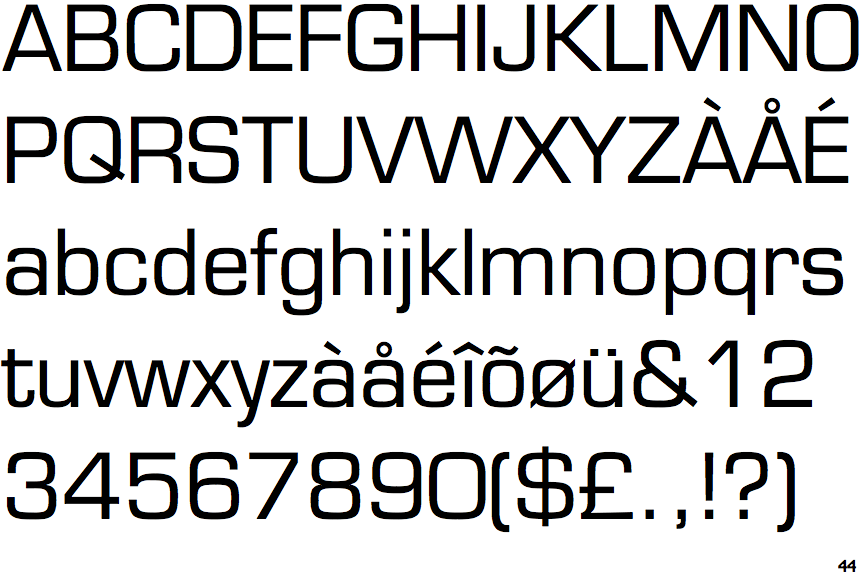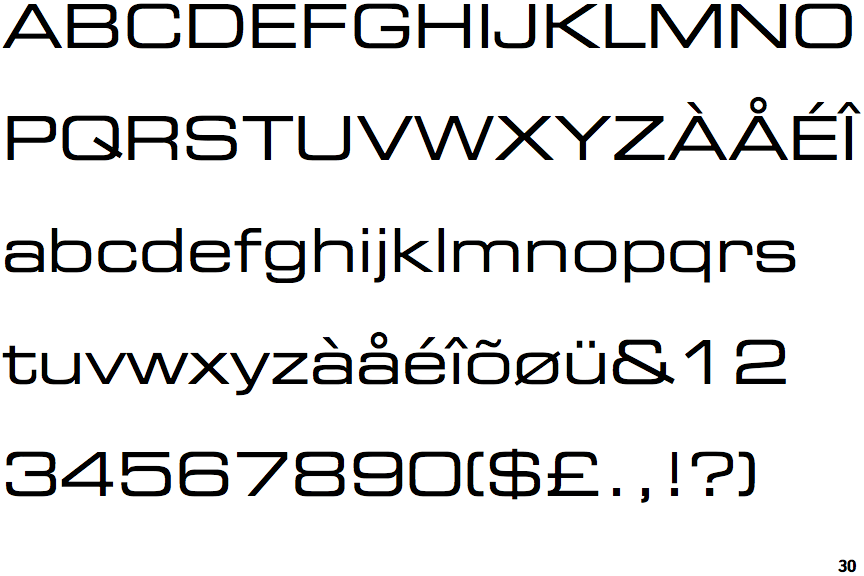
Eurostile font is an inspired variant of its previous typeface, microgramma. Home for the best free fonts. This is an extended typeface that is also.
This Font Is Very Close To Microgramma.
Here we are presenting the eurostile font that was initially designed by aldo novarese in the year 1962. 10 years immediately after microgramma, novarese mended this limitation using his style and. Eurostile bq regular is a regular opentype font.
Novarese Created This Font For Italian Foundries.
Eurostile Font Is An Inspired Variant Of Its Previous Typeface, Microgramma.